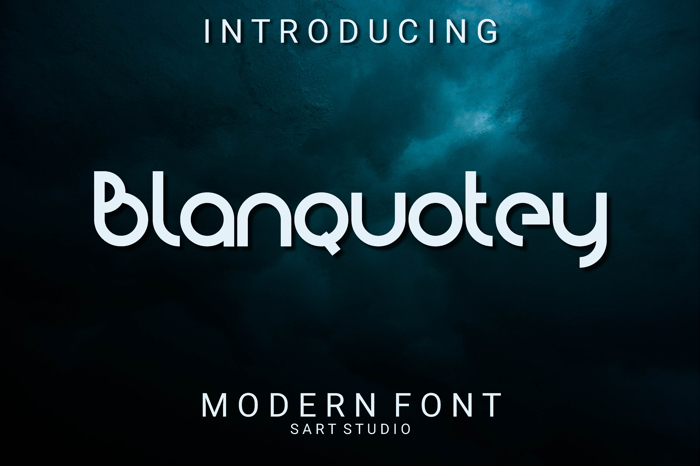
Blanquotey Font
Blanquotey is a simple and modern font that is made with great care, this font is suitable for logos, product branding, printing business, book covers and so on. The font is very easy to install and can be used in various applications such as Adobe Photoshop, Illustrator, Indesign, Microsoft Office and others.